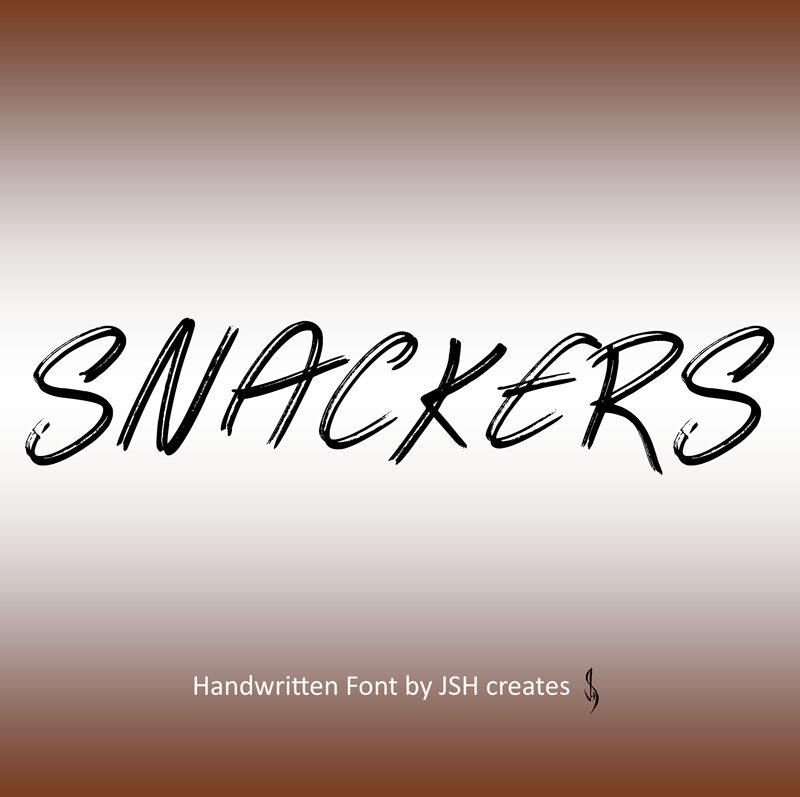
Snackers
Snackers font, designed by JSH creates, captivates with its playful, brush-style aesthetics that evoke a sense of whimsy and creativity. The lively strokes and expressive curves effortlessly convey energy, making it an eye-catching choice for any design project. Its bold letters stand out with a distinct dynamic flair, while the fluidity of the brush detailing adds an organic quality that feels both modern and inviting.
Perfect for packaging labels, social media graphics, or event signage, Snackers delivers a unique charm that resonates with youthful vibrancy. This font is well-suited for projects seeking to communicate fun and enthusiasm while maintaining a stylish edge. Embrace Snackers in your next design endeavor to infuse it with personality and flair!